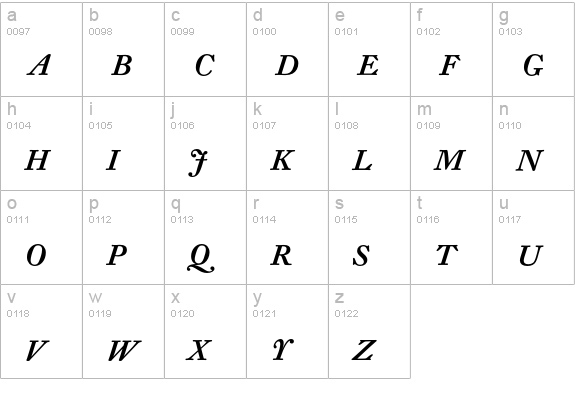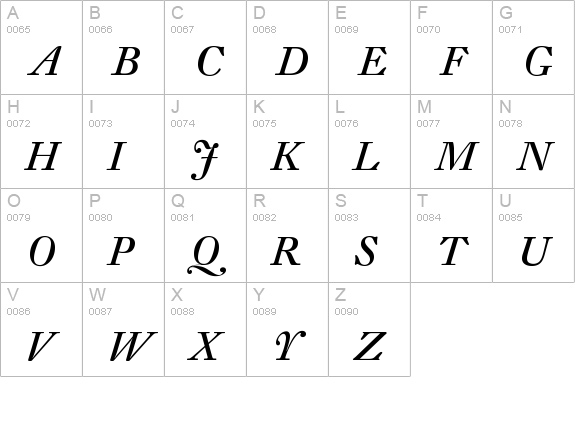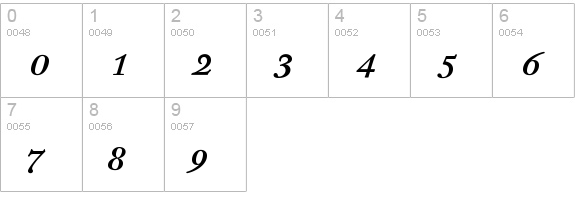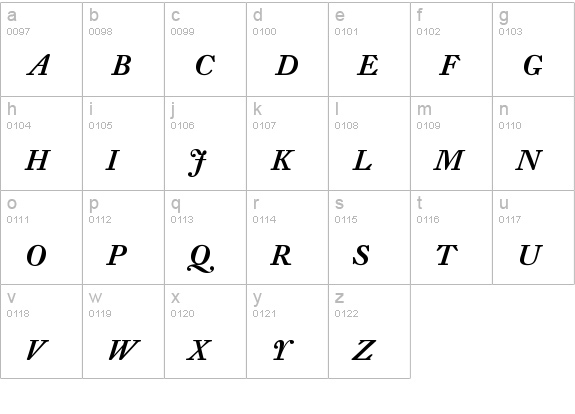
DTLFleischmannTCaps-Italic Font Details
DTLFleischmannTCaps-Italic is a distinctive, italic variant in the DTLFleischmannTCaps typeface family \xE2\x80\x94 well suited to design and typography projects.
DTLFleischmannTCaps-Italic is a stylish and elegant typeface that exudes sophistication and professionalism. With its sleek curves and slanted design, this italic font is perfect for adding a touch of class to any project. Whether you are designing a logo, creating invitations, or crafting a website, DTLFleischmannTCaps-Italic will elevate your work to the next level. The best part? This premium font is available for free download at FontsMarket.com. Don't miss out on the opportunity to enhance your designs with this exquisite typeface. Download DTLFleischmannTCaps-Italic today and make a statement with your typography.